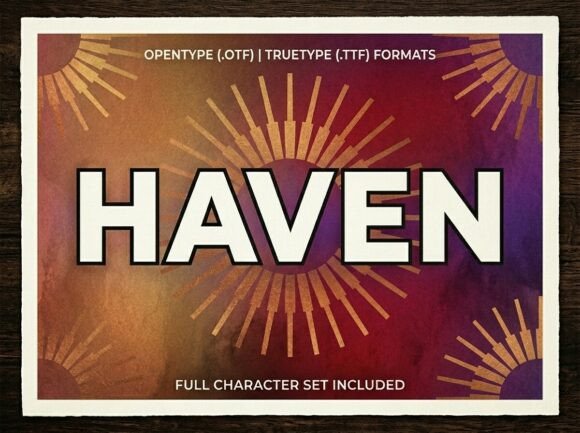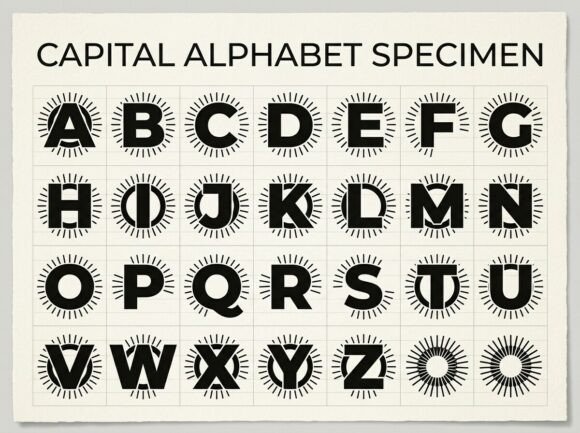
Introducing Haven Font: A Stunning Decorative Display Font
Are you tired of using the same old fonts for your creative projects? Look no further than Haven Font, a unique and artistic display font designed to make a statement. With its strong visual personality and decorative elements, this font is perfect for creators who want to break away from the ordinary and add a touch of elegance to their work.
What Makes Haven Font Special?
Haven Font is a decorative display font that is sure to turn heads. Its unique artistic elements and strong visual personality make it perfect for bold headlines, artistic logos, and creative packaging. Whether you’re a designer, crafty DIY enthusiast, or entrepreneur, this font is versatile enough to meet your needs while maintaining a professional and polished finish.
Why Choose Haven Font?
There are many reasons why Haven Font stands out from the rest. Here are just a few:
- Unique and Artistic: Haven Font features unique artistic elements that will set your work apart from the crowd.
- Versatile: This font is perfect for a variety of creative projects, from bold headlines and artistic logos to creative packaging.
- Professional and Polished: Despite its decorative nature, Haven Font maintains a professional and polished finish that’s perfect for businesses and individuals alike.
- Headlines and Titles: Use Haven Font to create bold and eye-catching headlines and titles for your blog posts, articles, and social media graphics.
- Logos and Branding: Create a unique and memorable logo for your business or brand using Haven Font.
- Packaging and Labels: Add a touch of elegance to your packaging and labels with Haven Font.
Here are a few tips and tricks for getting the most out of Haven Font:
- Experiment with Colors: Haven Font looks great in a variety of colors, so don’t be afraid to experiment and find the perfect hue for your project.
- Play with Size: Haven Font is designed to make a statement, so try using it in different sizes to add visual interest to your project.
- Combine with Other Fonts: Haven Font pairs well with a variety of other fonts, so try combining it with a simpler font for added contrast.
In conclusion, Haven Font is a stunning decorative display font that’s perfect for creators who want to add a touch of elegance and sophistication to their work. With its unique artistic elements, strong visual personality, and versatility, this font is sure to become a favorite in your design arsenal. So why wait? Purchase Haven Font today and start creating stunning creative projects that will leave a lasting impression.